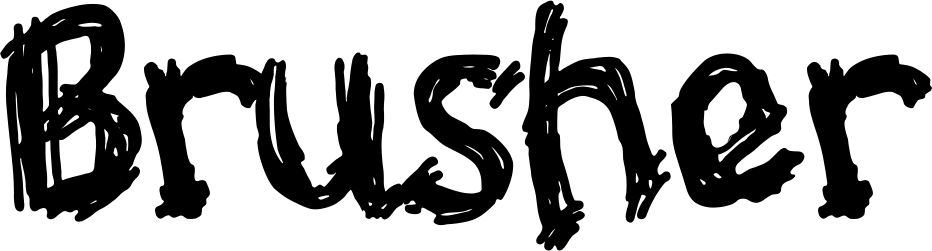
Brusher Font
Go with a sketch font this time and make a striking layout. Brusher is a little bit messed up and you can make use of it for special projects like; games, posters, book covers, etc. If you are looking for more, RB is at your service, browse it and get what you fancy.
Brusher is font script. Suitable for writing the title or other